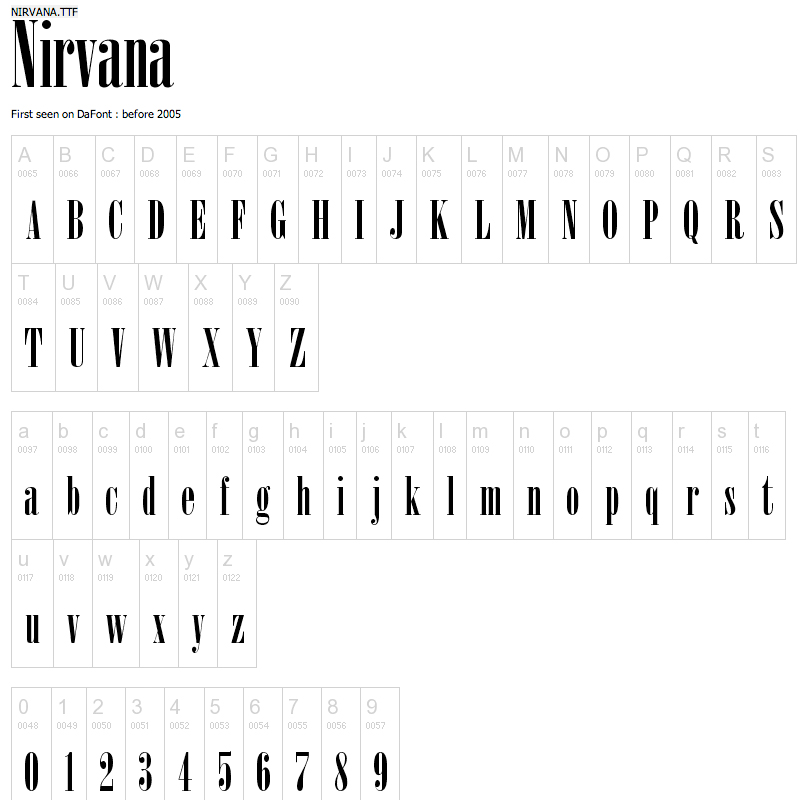
Preferably one similar to this:
Here's one called 'Bordeaux Roman Bold LET'.
I think this is what you might want, free at dafont.com
Quite a nice font too!
EDITION is there as well!